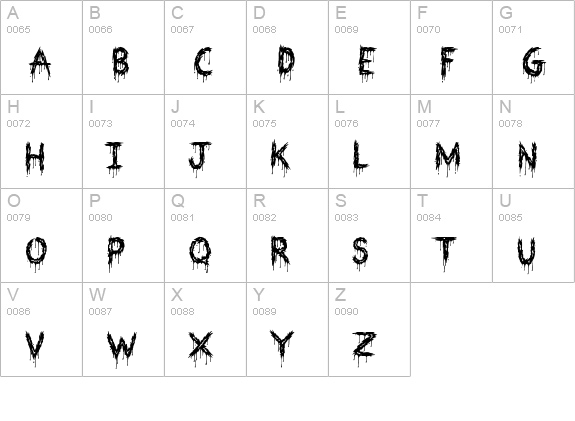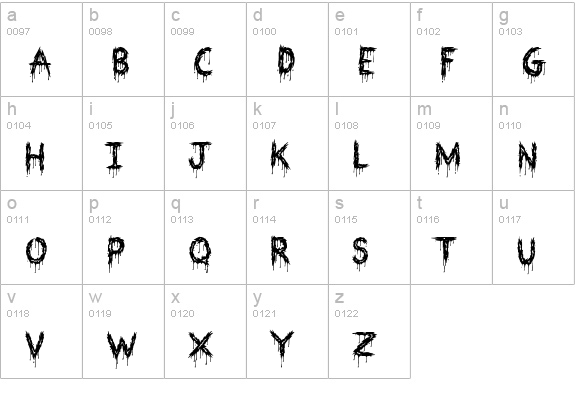
Vampire Stakes Font Details
Vampire Stakes font is a hauntingly beautiful typeface that exudes an air of mystery and allure. Its sharp, angular design captures the essence of ancient vampire lore, with each letter possessing an elegant yet dangerous edge. This font is perfect for adding a touch of gothic elegance to any project, whether it be a horror novel cover, a Halloween party invitation, or a dark and brooding website design. What makes Vampire Stakes font even more enticing is the fact that it is freely available to download at FontsMarket.com. Yes, you heard that right - this captivating font can be yours at no cost! With just a few clicks, you can bring the supernatural charm of Vampire Stakes into your creative endeavors, without breaking the bank. Whether you're a professional designer or a casual enthusiast, Vampire Stakes font will surely captivate your imagination. Its timeless appeal and versatile nature allow it to be used in a myriad of ways, from branding to social media graphics, ensuring that your projects stand out from the crowd. So why wait? Embrace the darkness and download Vampire Stakes font today, available exclusively at FontsMarket.com.